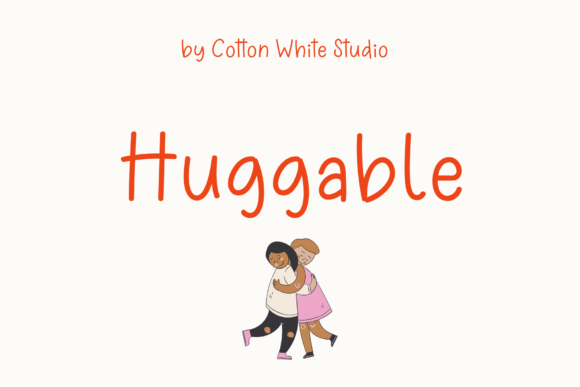
Welcome to the world of Huggable Font, a captivating script font family crafted by Cotton White Studio, where artistry meets elegance. Dive into a realm of creativity where your words transform into heartfelt expressions, leaving a lasting impression on every digital canvas you grace.
Embark on a journey through the realm of digital art with Huggable Font, the perfect companion for your creative endeavors. Whether you're a seasoned designer or just starting your creative journey, Huggable Font is your gateway to stunning visual masterpieces. Unleash your imagination and let your designs flourish with this font's enchanting charm.
Picture this: your digital planner adorned with Huggable Font's warm and inviting strokes, guiding you through your daily tasks with a touch of personal flair. Your notes and journal entries come alive, filled with the expressive beauty of handwritten words. Invitations, cards, and other special creations radiate with a unique charm, making every occasion truly memorable.
With Huggable Font, your designs transcend the boundaries of the digital realm. Laser-cut projects, heat transfer designs, printable art, and more come to life with a touch of elegance and sophistication. Add a personal touch to your home décor, fashion accessories, or handmade gifts that speak volumes about your artistic flair.
But Huggable Font's allure lies not only in its versatility but also in its emotional resonance. Each letter, each stroke, is infused with a sense of warmth and authenticity that captivates the hearts of your audience. Your designs become more than just visual representations; they become expressions of your passion, your personality, and your unique perspective.